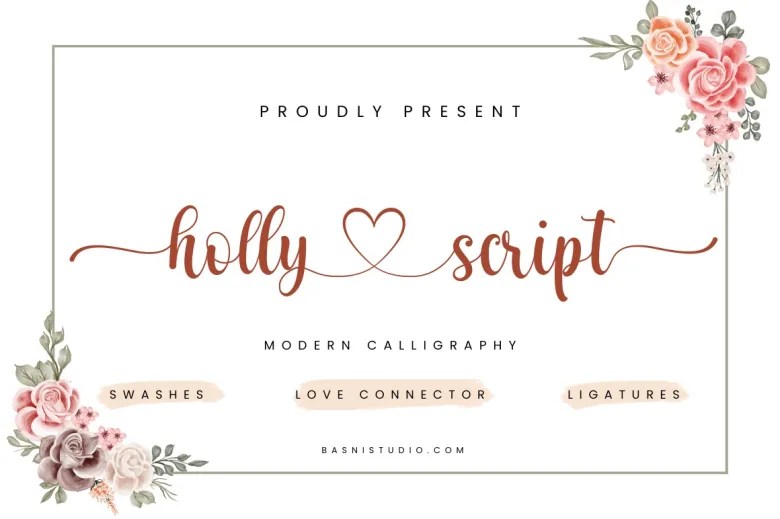
Holly Script Font
Holly Script is a modern calligraphic font designed to infuse your projects with elegance and charm. Its meticulously crafted strokes create a luxurious appearance, making it perfect for a variety of applications where beauty and sophistication are desired. Holly Script stands out with its clean, refined lines and a range of stylish glyphs that add a distinctive touch to any design.
The font features a variety of elements that enhance its versatility, including beginning and ending swashes, connector glyphs, and initial swashes that exude a sense of romance and grace. Special ligatures, such as the unique “tt” lowercase combination, are also included, ensuring smooth and aesthetically pleasing text. These features make Holly Script an excellent choice for branding, logos, wedding invitations, quotes, and magazine layouts, among other uses.